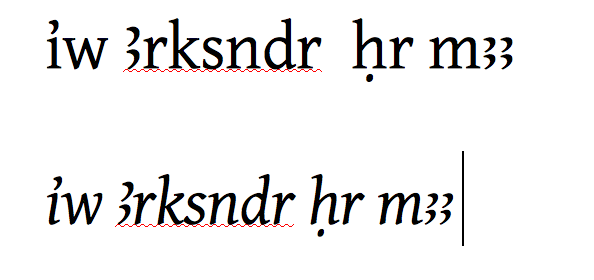
Agreed too — In any case, the point Daniel has made, that in a given font, the shape of the accent should be consistent with the shape of the Aleph, should be mentioned.
Regarding the examples, the shapes of i+U0313 in Gentium Plus is also correct and can also be given as example (for the lower-case char only, the upper-case accent is currently placed in the wrong position):
(The upper-case has the accent in the wrong position, of course).